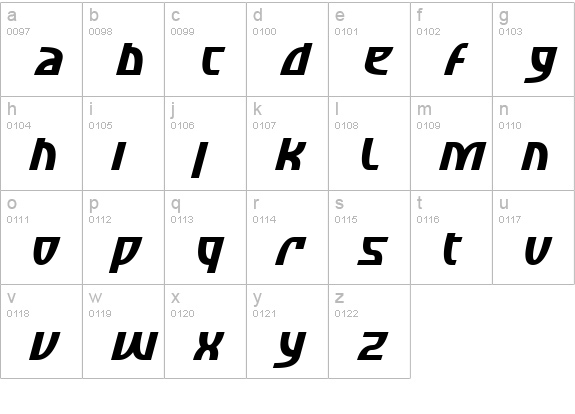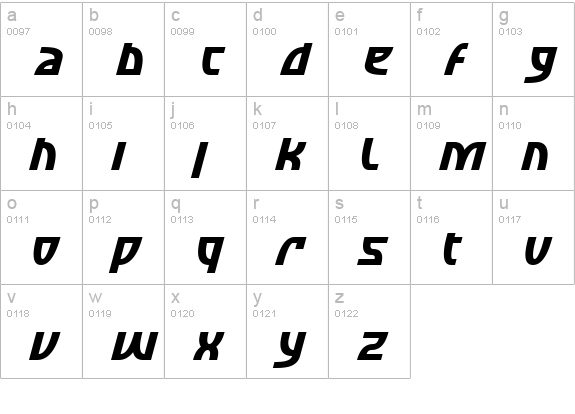
SF Retroesque Italic Font Details
SF Retroesque Italic is a distinctive, italic variant in the SF typeface family \xE2\x80\x94 well suited to design and typography projects.
SF Retroesque Italic font is a stunning, eye-catching typeface that captures the essence of retro design with a modern twist. Its sleek and elegant design features curved lines and a unique italic style that adds a touch of sophistication to any project. This font is perfect for those who appreciate the nostalgia of vintage aesthetics, but also crave a contemporary edge. It seamlessly blends the best of both worlds, making it a versatile choice for various design applications. Whether you're designing a logo, creating a poster, or working on a website, SF Retroesque Italic font will bring a sense of charm and character to your work. Its fluid curves and stylish angles create a visually pleasing experience that is sure to captivate your audience. One of the best things about SF Retroesque Italic font is that it is freely available to download at FontsMarket.com. This means that you can easily access this beautiful typeface and use it in your projects without any cost. It's a fantastic opportunity to enhance your designs without breaking the bank. So why wait? Add a touch of retro elegance to your designs with SF Retroesque Italic font. Download it today from FontsMarket.com and let your creativity soar.